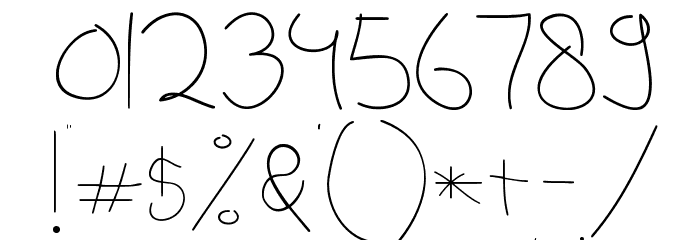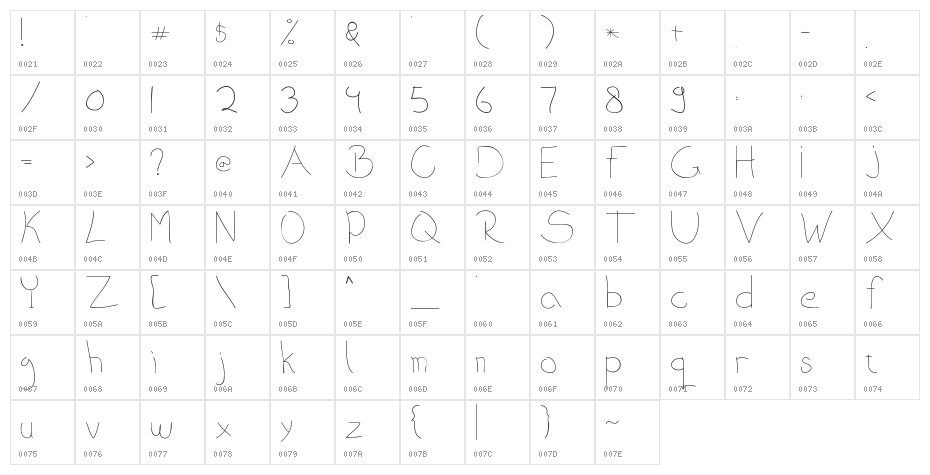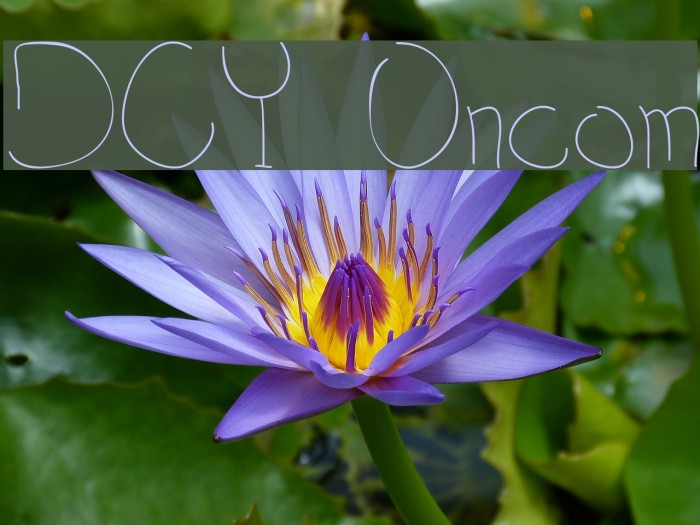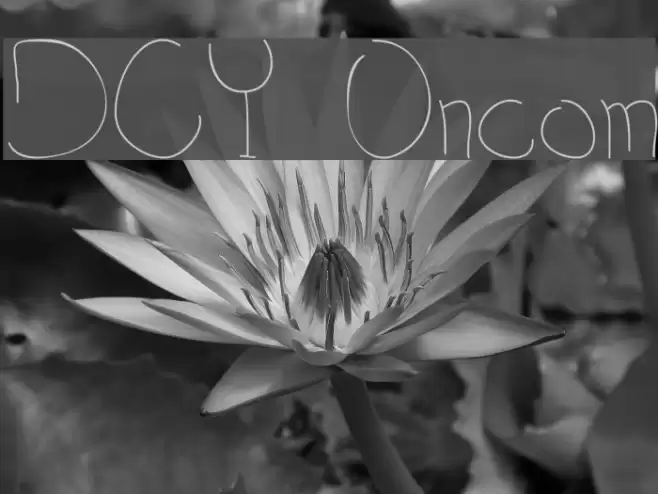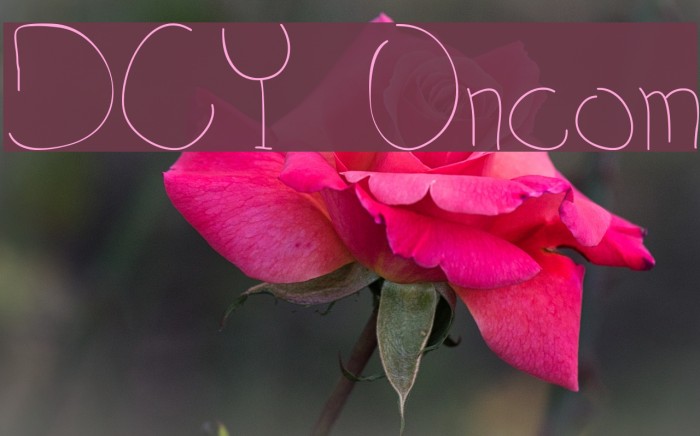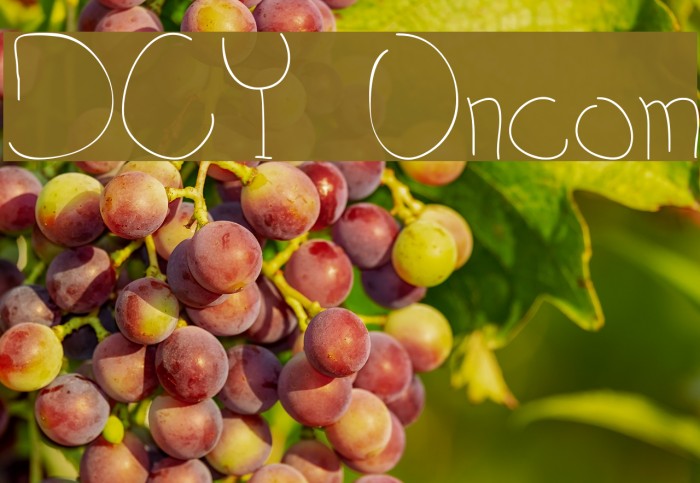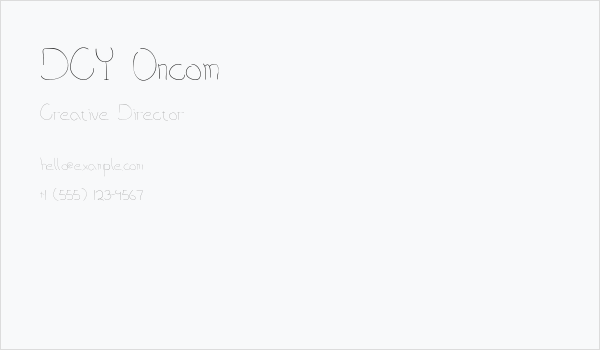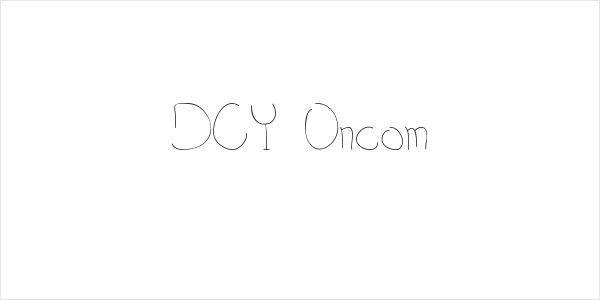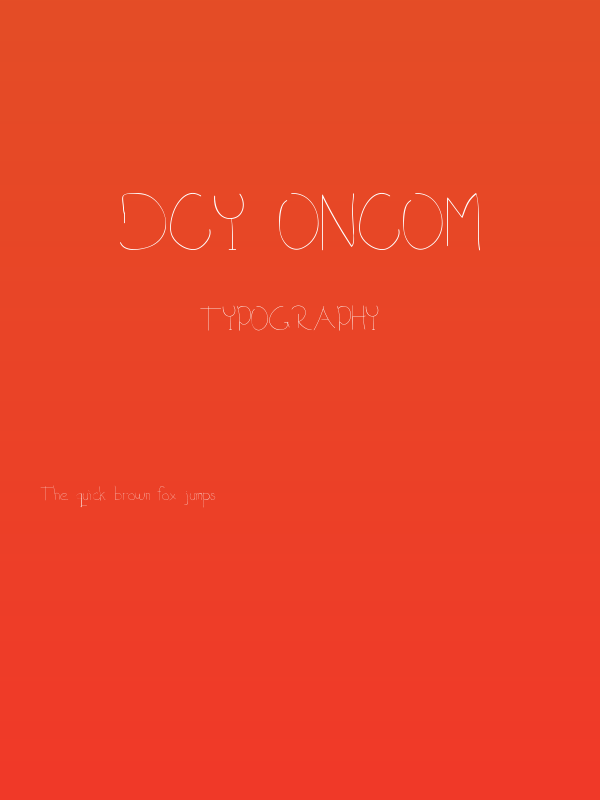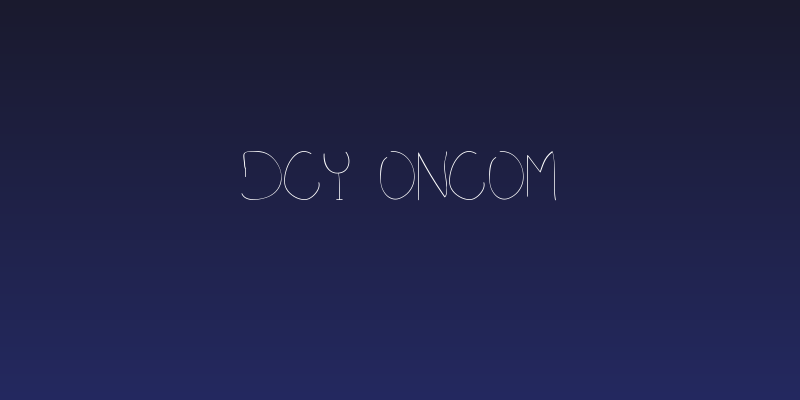
DCY Oncom Font
DCY Oncom Description
This font features a playful and whimsical design with thin, elongated strokes that give it a light and airy feel. The characters are slightly irregular, adding a hand-drawn, organic touch. Uppercase letters are tall and narrow, while lowercase letters maintain a consistent height, creating a harmonious balance. The numerals are distinct and easy to read, with a quirky twist that matches the overall style. Special characters are creatively designed, maintaining the font's unique personality. This font is ideal for projects that require a fun and informal aesthetic.
Overall StyleWhimsical
Proposed ProjectsIdeal for children's books, greeting cards, playful branding, and creative posters.